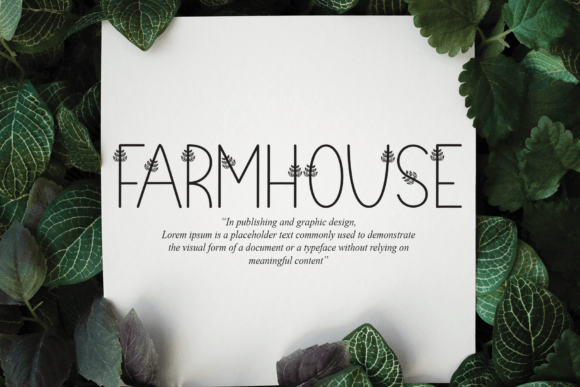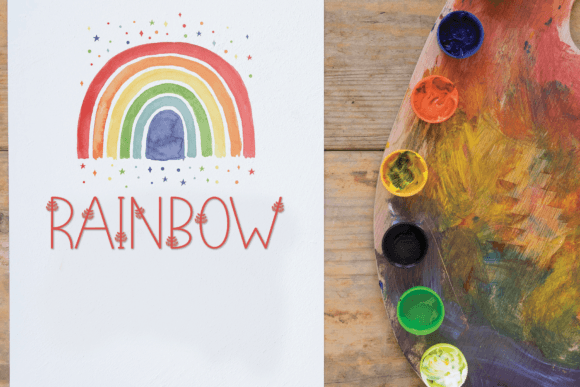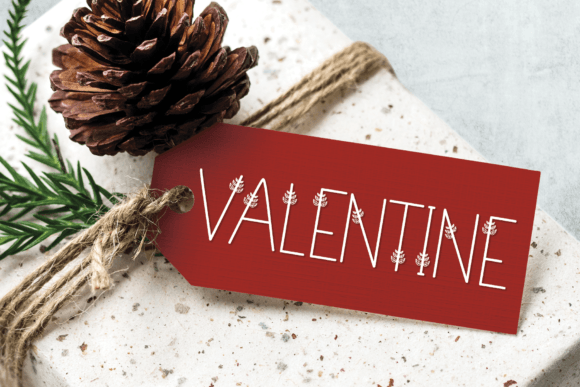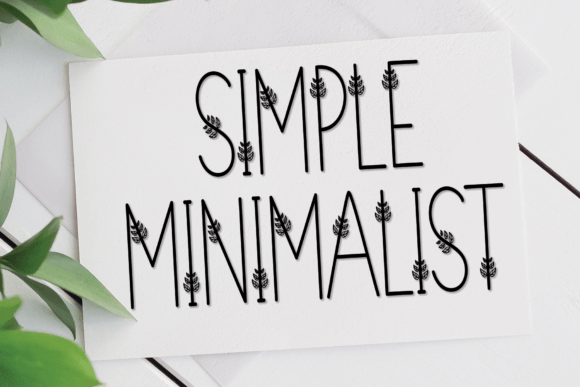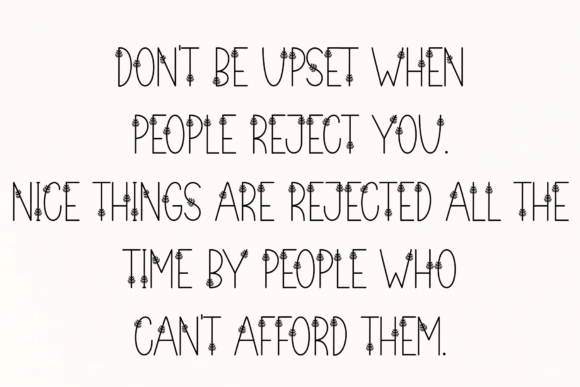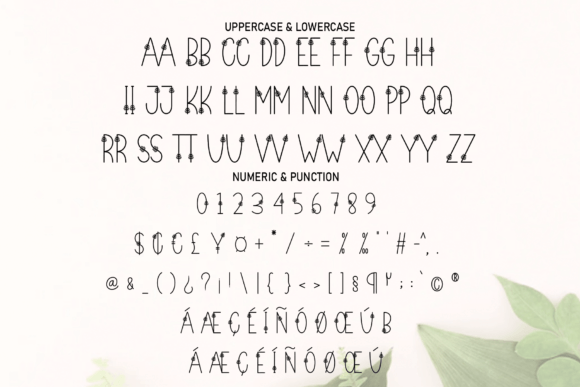
Introduction to Leaves Flower Font
As a designer, have you ever stumbled upon that perfect font that makes your creative project pop? For me, it was the moment I discovered the enchanting Leaves Flower Font. Its delicate, handwritten style instantly elevated my design, and I knew I had to share it with fellow creatives. This lovely font has become a staple in my design library, and I’m excited to introduce you to its charm.
With its high-quality design and transparent background, the Leaves Flower Font is a valuable resource for any designer looking to add a touch of elegance to their work. Whether you’re working on a free download or a commissioned project, this font has the potential to make your design stand out. In this article, we’ll delve into the world of Leaves Flower Font and explore why it’s a must-have for any design enthusiast.
Key Features of Leaves Flower Font
- Unique and intricate design with a blend of leaves and flowers, perfect for creative projects.
- High-quality font with transparent background, ideal for designers looking for a free download.
- Large character set with over 200 glyphs, including international characters, making it suitable for a wide range of design resources.
Honest Review: Leaves Flower Font
I recently had the chance to work with the Leaves Flower Font, and I must say it’s a lovely addition to any design project. ✨ The font is available for free download, which is always a bonus. Upon closer inspection, I noticed the transparent background option, which makes it easy to overlay on any image or design.
The Leaves Flower Font is a high-quality design resource that’s perfect for creative projects. The font’s delicate and whimsical style adds a touch of elegance to any design. It’s great for wedding invitations, floral-inspired designs, or even children’s book illustrations.
However, there are a few limitations to keep in mind: ⚠️ the font may not be suitable for projects that require a bold or dramatic font style. Additionally, the font’s delicate nature may make it difficult to read in certain contexts.
Overall, I’m impressed with the Leaves Flower Font. It’s a beautiful and versatile design resource that’s sure to add a touch of magic to any project.
The Leaves Flower Font is a beautiful and elegant design resource perfect for creative projects. This high-quality font is available for free download and features a transparent background, making it easy to incorporate into your designs.
The Leaves Flower Font is perfect for a variety of creative projects, including:
- Floral-themed designs and graphics
- Botanical illustrations and artwork
- Brand logos and identity designs